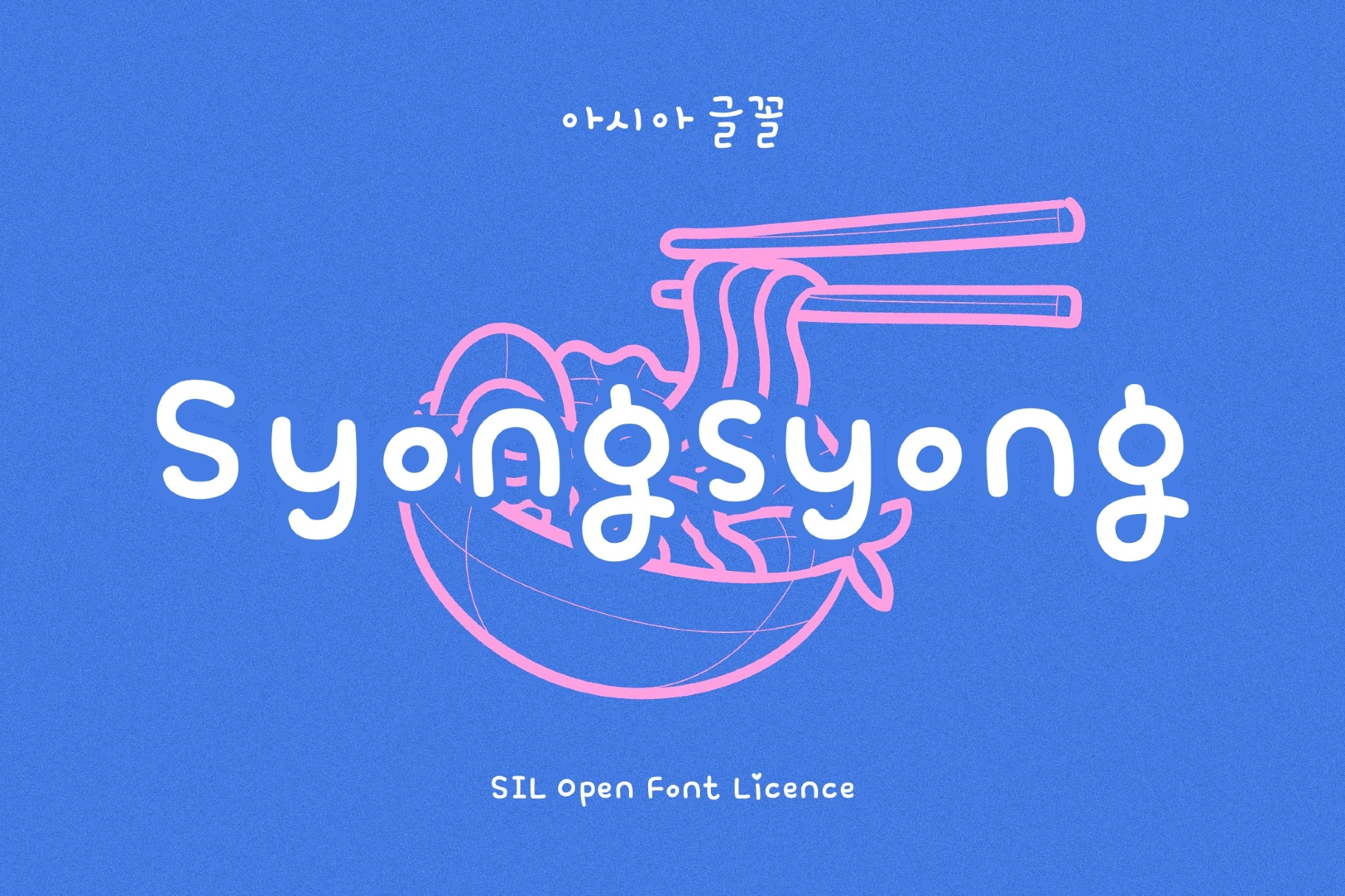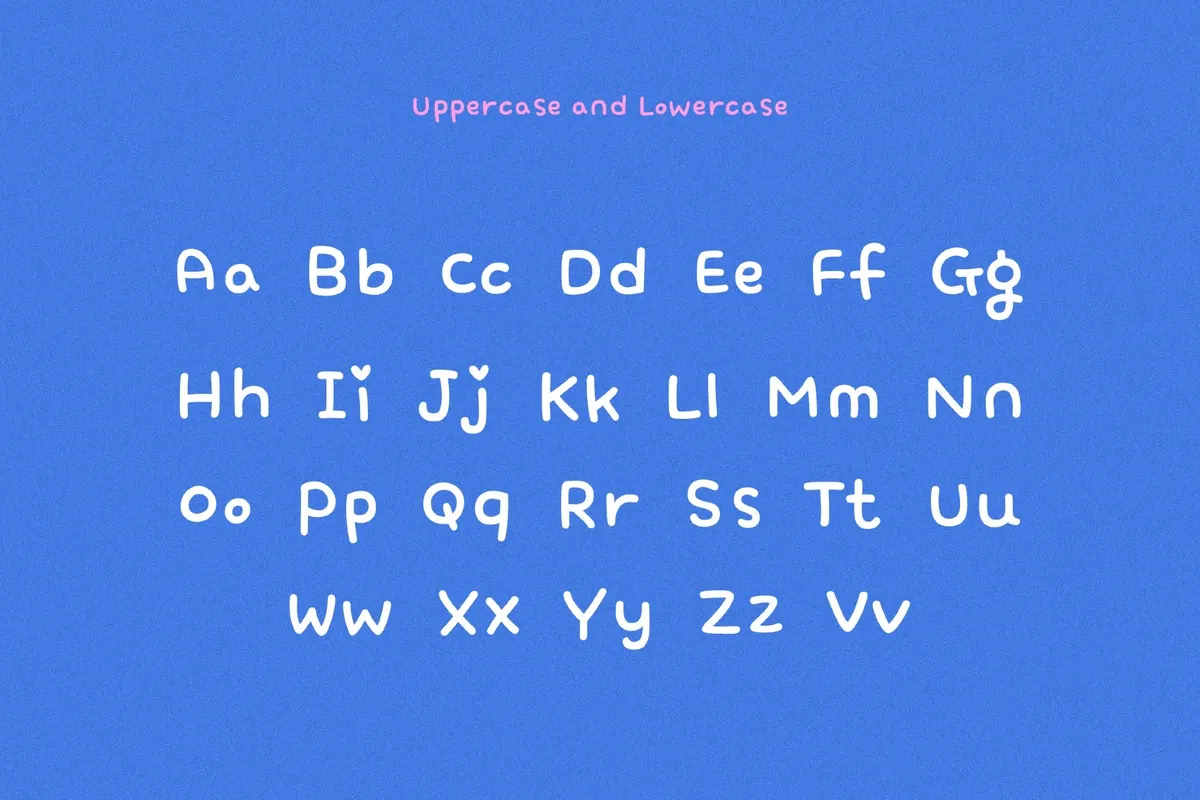
Syongsyong Font
Syongsyong font sketches rounded, playful letterforms that feel at home in Korean webtoons and cute stationery culture, and blends casual handwriting with soft, toy-like curves. The Hangul plus Latin letters work for bilingual headlines. Use it for kids’ product packaging, café menus, event flyers, sticker sheets, app splash screens, comics, webtoons, stickers, greeting cards, YouTube captions, and social posts.
- Numbers, punctuation, dingbats, and symbols.
- Multilingual support across basic Latin and Hangul scripts.